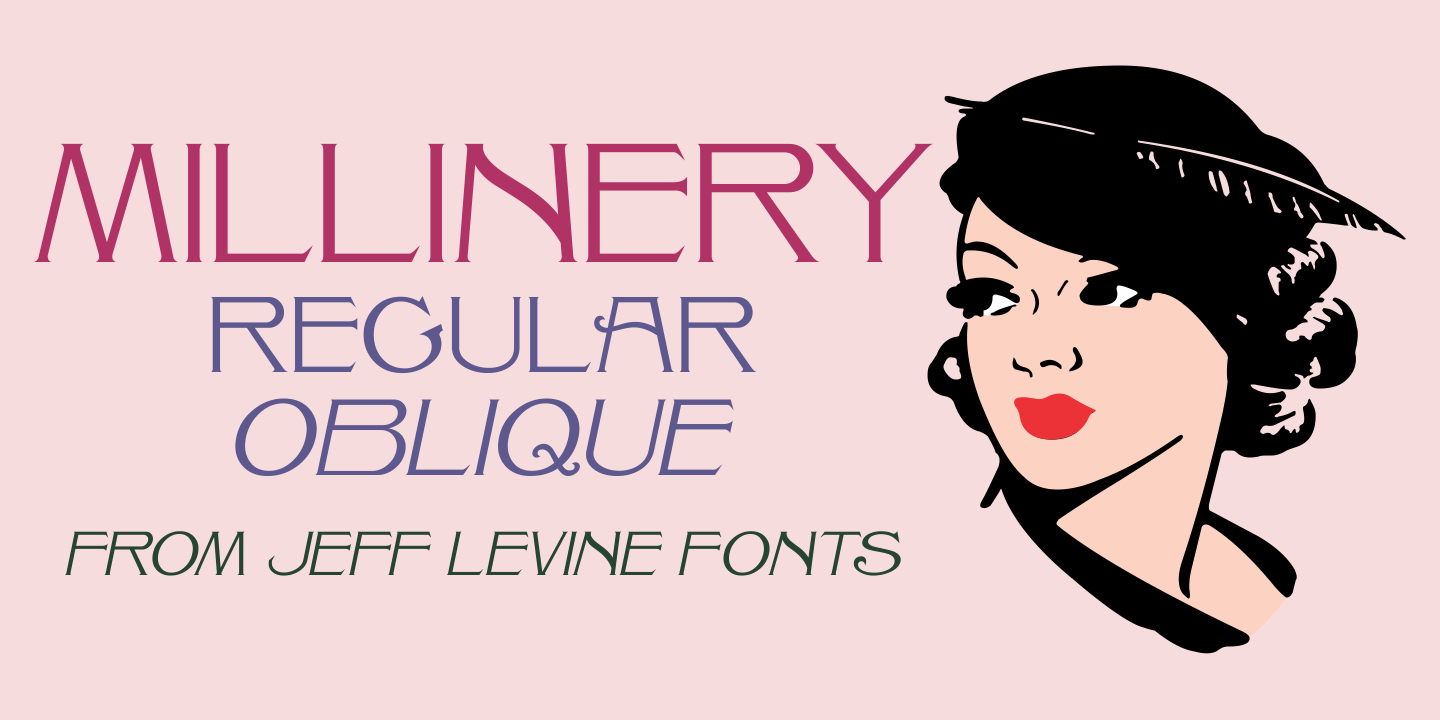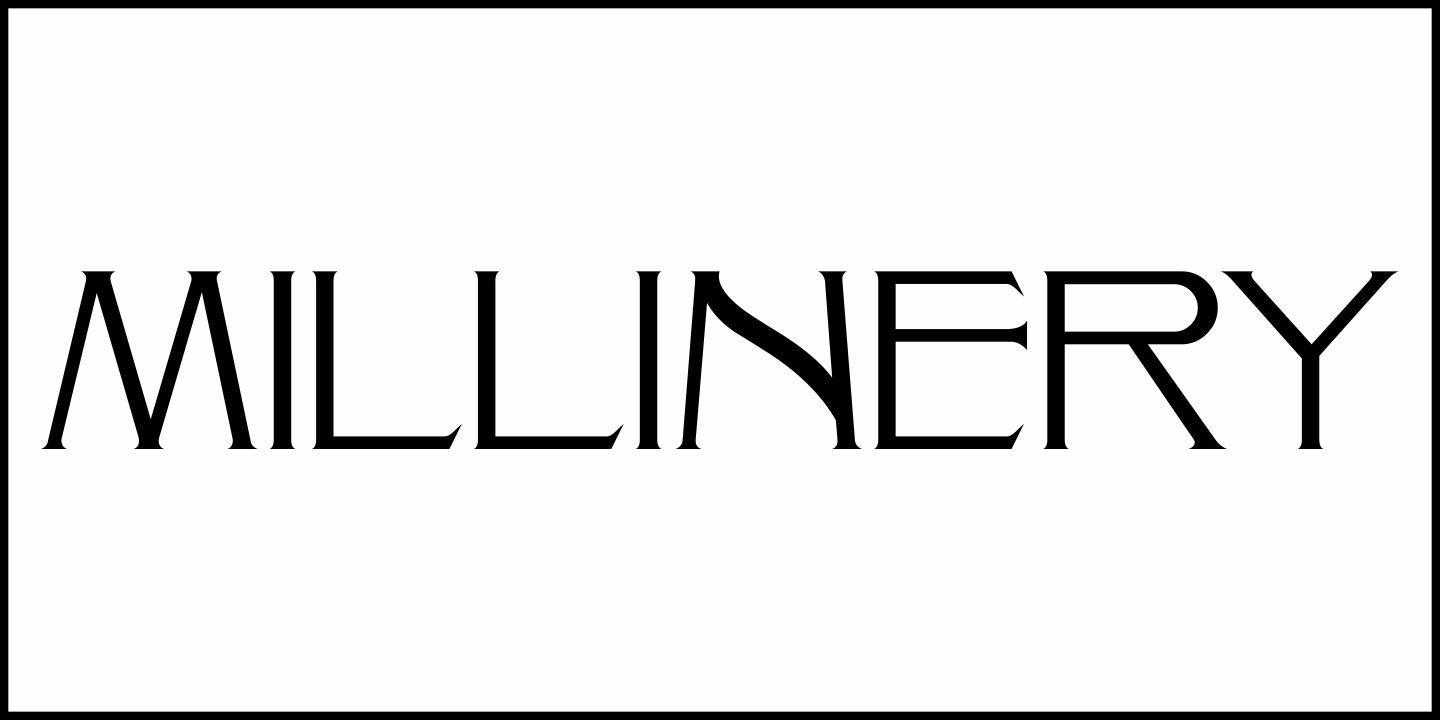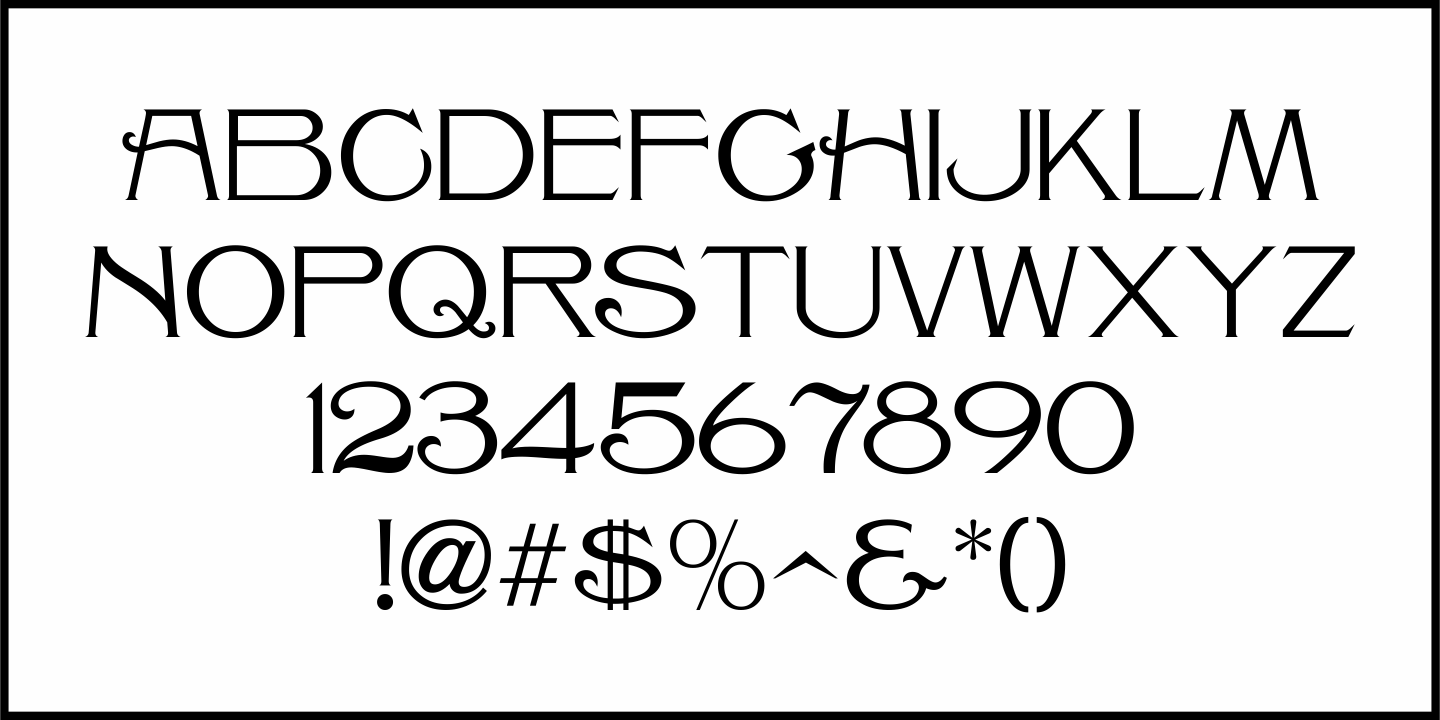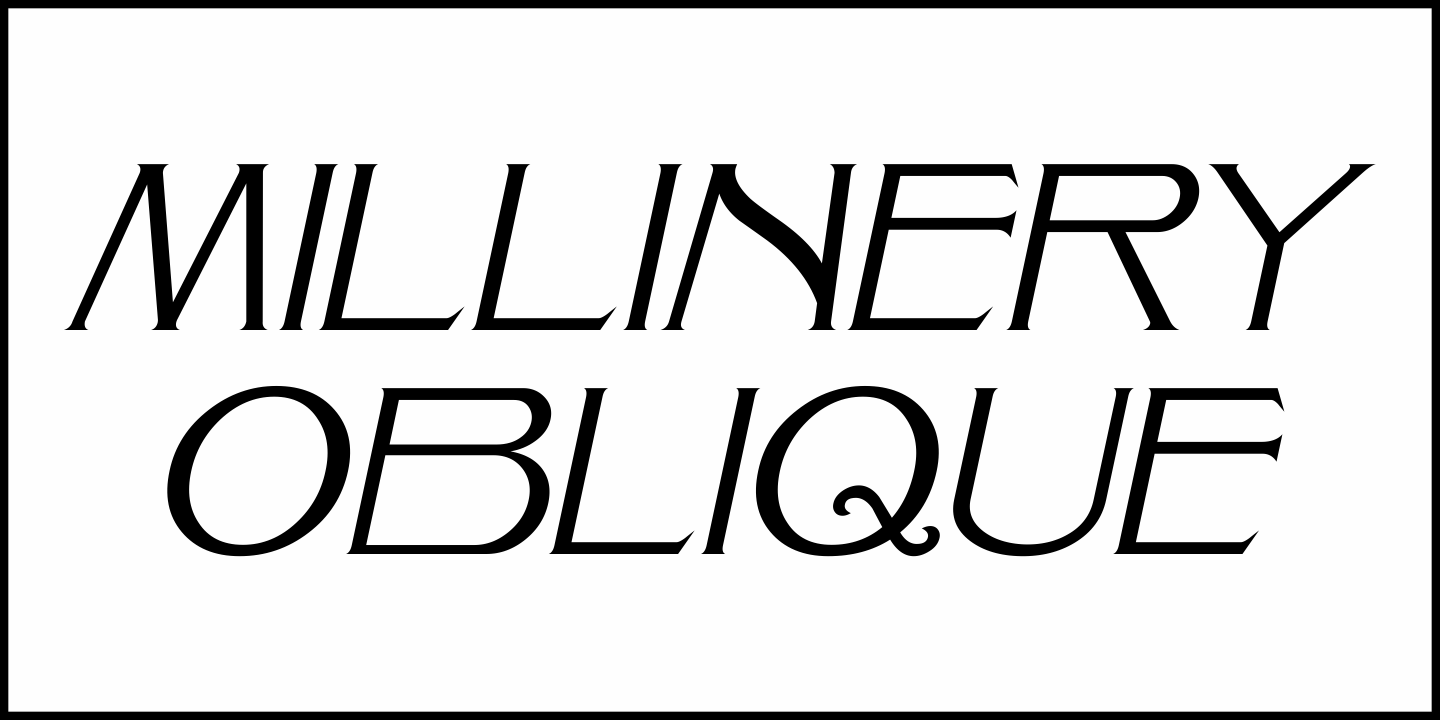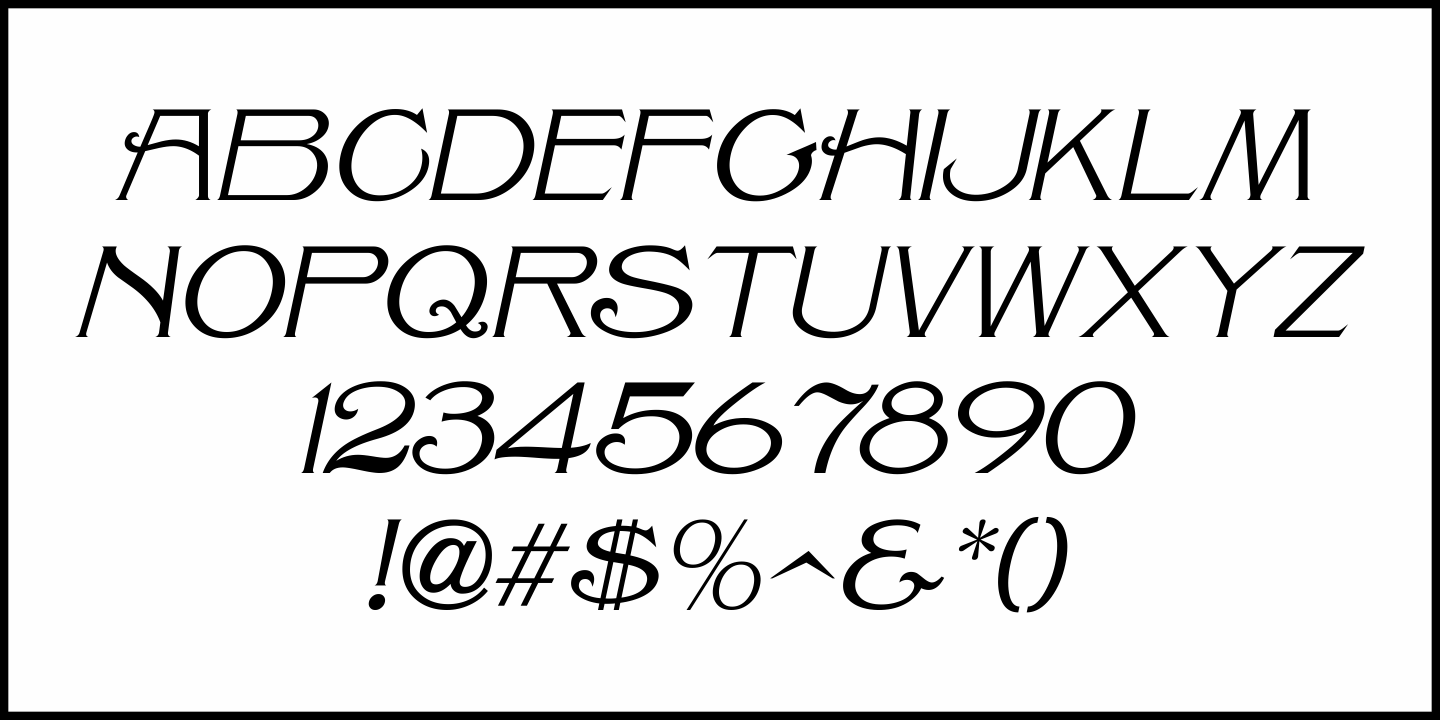
Millinery
One of the type samples showcased in the 1907 Barnhart Brothers & Spindler specimen book was named “Sterling”; a spurred serif Art Nouveau design.
This is now available digitally as Millinery JNL in both regular and oblique versions.
An old fashioned term for a once plentiful business, ‘millinery’ is a women’s hat shop.